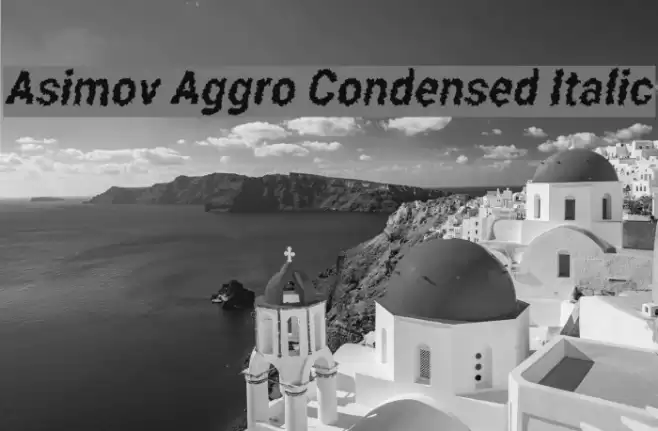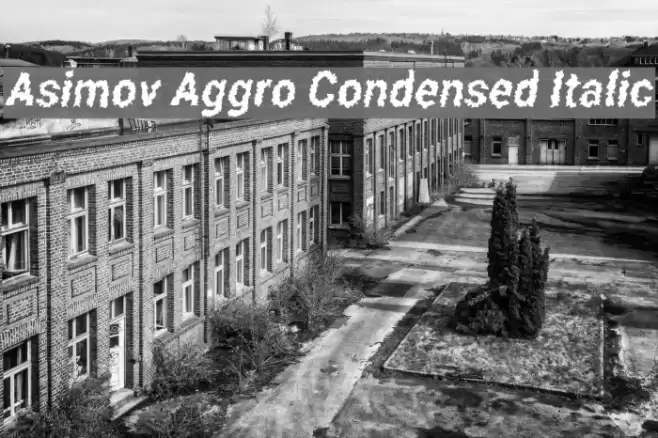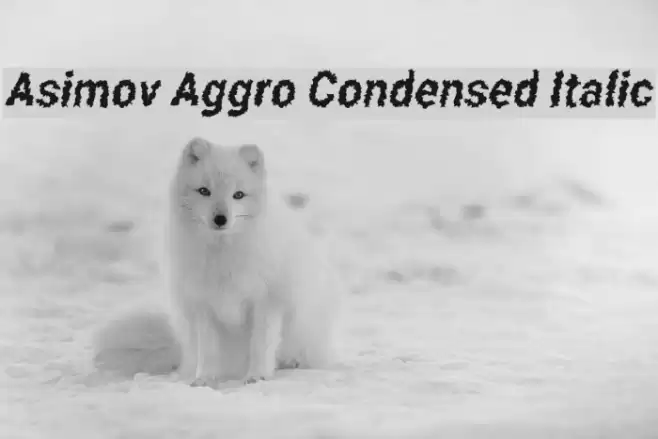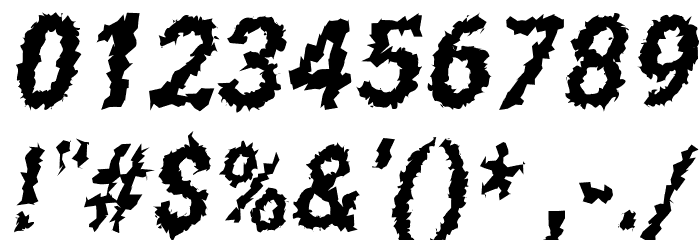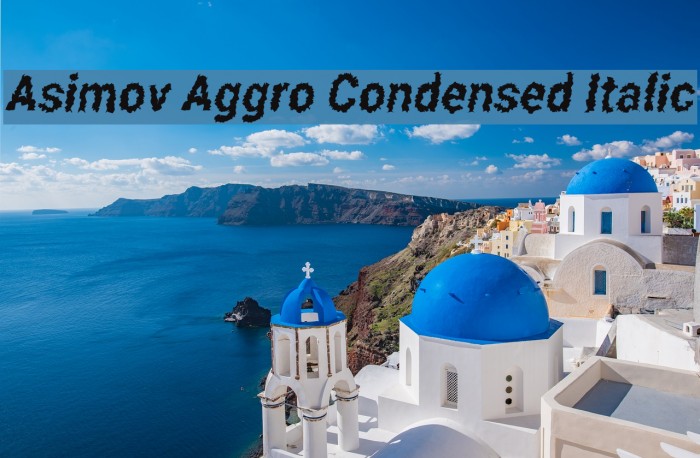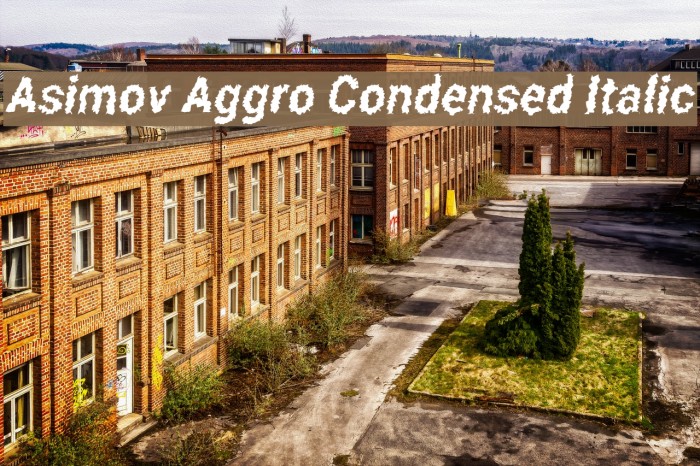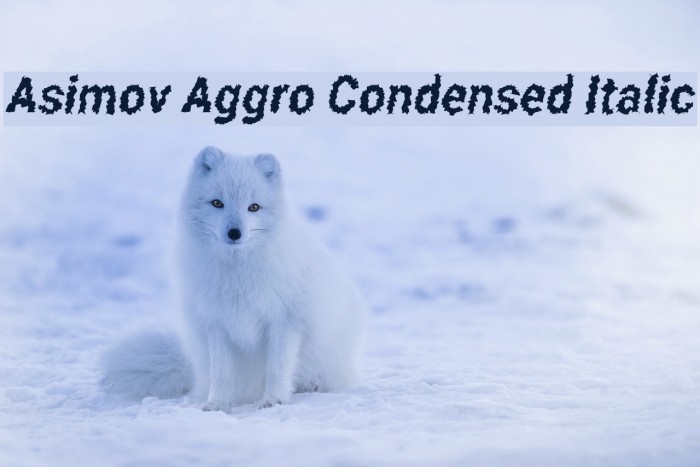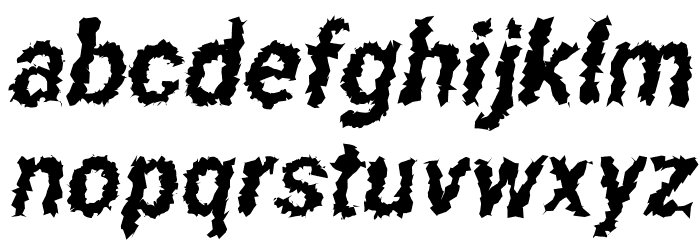
Asimov Aggro Condensed Italic Font
Asimov Aggro Condensed Italic Description
This font features a bold and aggressive style with jagged, thorn-like edges that give it a dynamic and edgy appearance. The condensed form enhances its compactness, making it suitable for impactful designs. The italic slant adds a sense of motion and urgency, perfect for attention-grabbing headlines or titles. Its unique design is reminiscent of a chaotic, energetic aesthetic, making it stand out in any project. The characters are tightly spaced, contributing to its condensed look, while maintaining legibility. The high contrast between the thick and thin strokes further emphasizes its boldness, making it ideal for creative and unconventional uses.
A bold, jagged, and italic font with a condensed and aggressive style.
- Proposed Projects: Ideal for music album covers, extreme sports branding, horror movie posters, or any project needing a bold, edgy look.
- Character Spacing: Tight